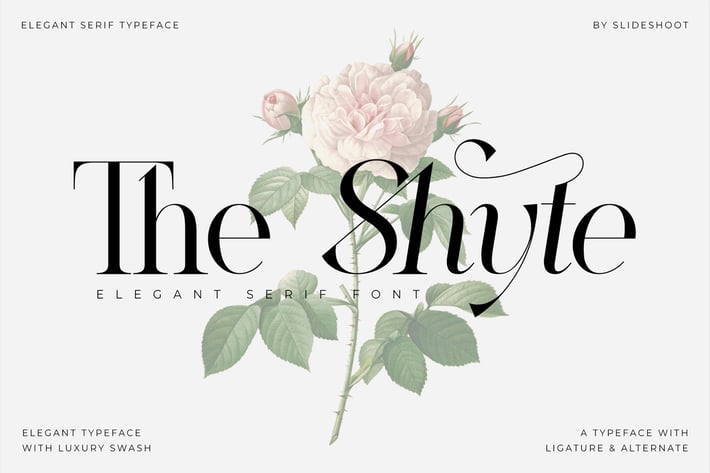
The Shyte Serif Font
The Shyte Serif is a balanced, smooth, elegant and stylish serif font. This typeface has two main styles, Regular and Italic, which are designed to work elegantly in unison and separately. He has a beautiful character. Very suitable to be combined with invitation card designs, company logos, film titles, film names, business cards, book titles, brand names and various other designs. The Shyte Serif is a smooth serif font that exudes sophistication and elegance. Its stylish alternation and binding make this font the perfect partner for any project.
- Uppercase and lowercase
- Numbering and Punctuation